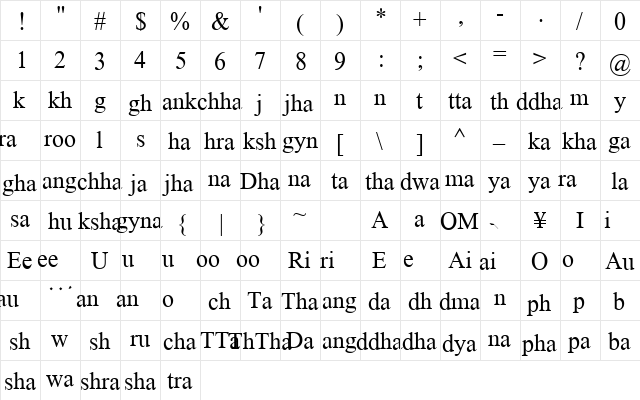
Fontasy Roman Himali Normal
Design Context for Fontasy Roman Himali Typeface
Fontasy Roman Himali offers clean, dependable letterforms without strong stylistic allegiance, making it a practical choice for designers who need flexibility.